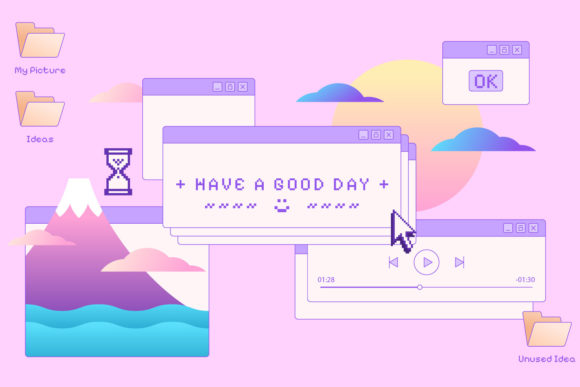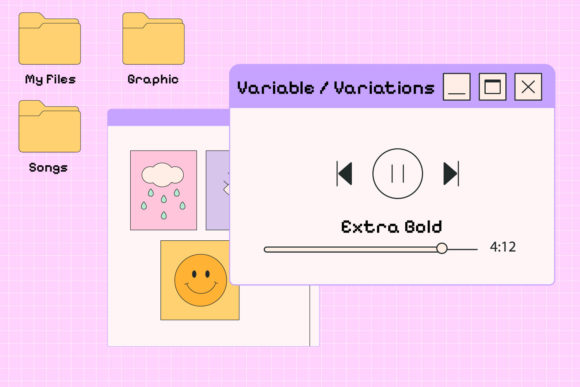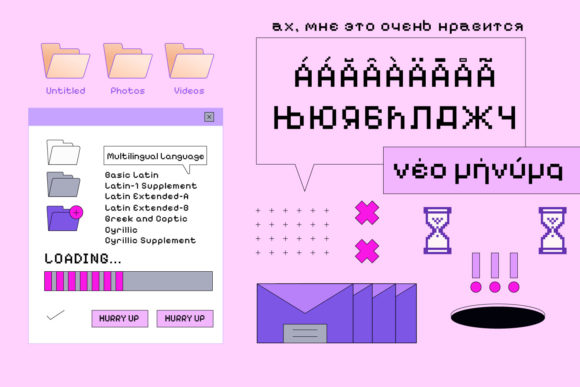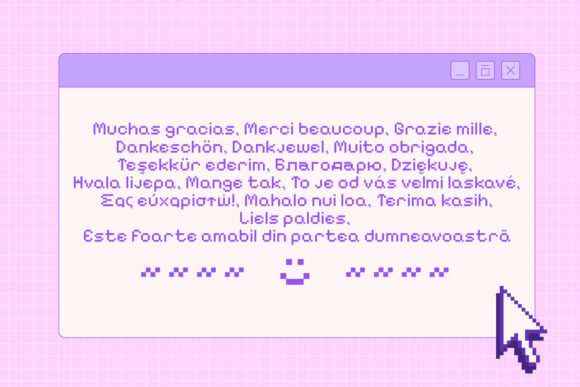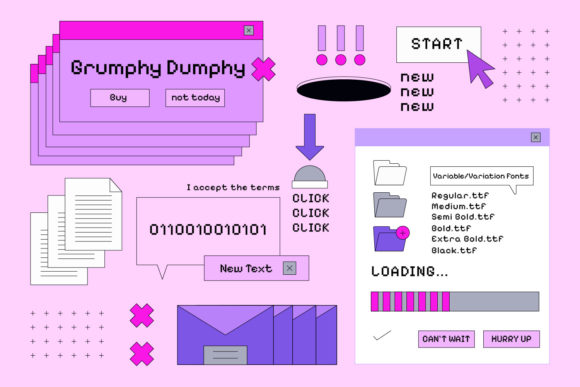
Grumphy Dumphy Font: The Ultimate Retro Pixel Display Font
Are you looking for a font that screams nostalgia and takes you back to the radical 90’s? Look no further than Grumphy Dumphy, a 90’s pixel display font that’s perfect for retro-themed designs, game creation, and any project that demands a “go back in time” vibe.
What is Grumphy Dumphy Font?
Grumphy Dumphy is a pixelated display font that embodies the spirit of the 1990s. Its chunky, pixelated design is reminiscent of old-school video games, VHS tapes, and retro computer graphics. This font is sure to bring a blast from the past to your designs, making it a great choice for projects that require a nostalgic feel.
Key Features of Grumphy Dumphy Font
- Pixel Perfect Design: Grumphy Dumphy’s pixelated design makes it perfect for creating retro-style graphics, logos, and text.
- 90’s Nostalgia: This font is a love letter to the 1990s, evoking memories of old-school video games, MTV, and retro fashion.
- Highly Readable: Despite its pixelated design, Grumphy Dumphy is highly readable, making it suitable for use in a variety of applications, from titles and headings to body text.
- Versatile: This font can be used for a wide range of projects, from game development and retro-themed designs to posters, flyers, and social media graphics.
Use Cases for Grumphy Dumphy Font
Grumphy Dumphy is a versatile font that can be used in a variety of contexts. Here are some use cases to get you started:
- Retro Game Development: Create pixelated game titles, menus, and UI elements that scream nostalgia.
- Retro-Themed Designs: Add a touch of nostalgia to your posters, flyers, and social media graphics with Grumphy Dumphy.
- Video and Motion Graphics: Use Grumphy Dumphy to create retro-style titles, subtitles, and animations for your video projects.
- Branding and Logo Design: Create a retro-inspired brand identity with Grumphy Dumphy, perfect for startups and businesses looking to stand out.
Tips for Using Grumphy Dumphy Font
To get the most out of Grumphy Dumphy, here are some tips to keep in mind:
- Use it sparingly: Grumphy Dumphy is a bold font, so use it sparingly to avoid overwhelming your design.
- Experiment with colors: Try pairing Grumphy Dumphy with bright, bold colors to amplify its retro vibe.
- Mix and match: Combine Grumphy Dumphy with other fonts to create a unique and interesting contrast.